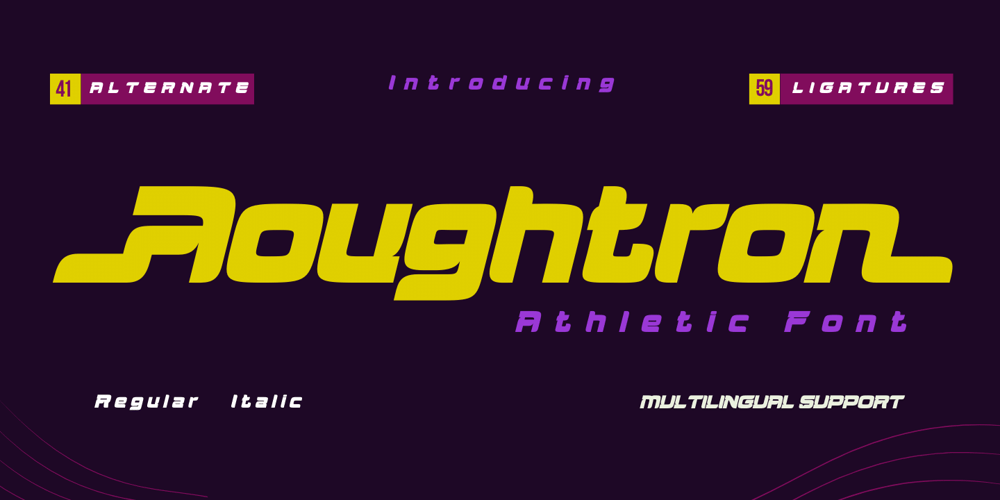
Aougtron Font Family was designed by Rozikan and published by Twinletter. Aougtron contains 2 styles and family package options. Aougtron is a modern font that combines a dynamic slope with sporting event-inspired lettering and cutouts. Designed to apply to all professional sporting events, it can also be used to create modern logos and screen prints in text fields.Aougtron’s bold and powerful appearance is created by the strong horizontal strokes on each letter which contrasts sharply with the elegant strokes on the corners of each letter. Combine these fonts to create a maximum display effect on each of your projects.What’s Included :- File font- All glyphs Iso Latin 1- Alternate, Ligature- Simple installations- We highly recommend using a program that supports OpenType features and Glyphs panels like many Adobe apps and Corel Draw so that you can see and access all Glyph variations.- PUA Encoded Characters – Fully accessible without additional design software.- Fonts include Multilingual support